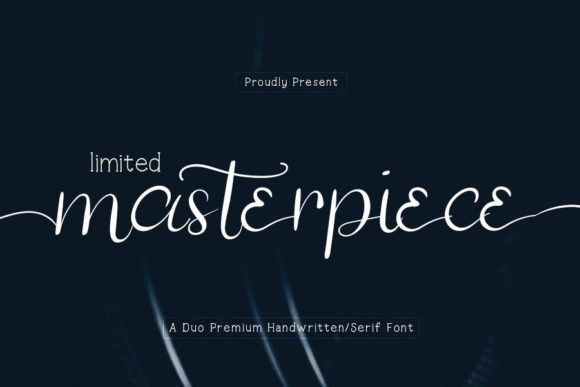
Embark on a Typographic Journey with Limited Masterpiece Font: An Artistic Fusion of Elegance and Finesse
Prepare to be entranced by Limited Masterpiece, a captivating and entrancing font duo that will elevate your designs to new heights of artistic expression. This remarkable creation by Creassion Studio seamlessly blends the grace of a serif font with the fluidity of a script, resulting in an aesthetic that radiates elegance and class. Limited Masterpiece is not just a font; it's an experience that will transform your creative visions into masterpieces.
Indulge in the beauty of Limited Masterpiece's serif font, where each letter is meticulously crafted with delicate strokes and refined curves, exuding a timeless charm that will leave a lasting impression on your audience. Perfectly suited for elegant invitations, sophisticated branding, and captivating logos, this font will elevate your designs with its understated yet undeniably captivating presence.
Immerse yourself in the enchanting world of Limited Masterpiece's script font, where each character dances across the page like a delicate ballet. Its graceful lines and elegant flourishes infuse your designs with a touch of whimsy and romance, making it an ideal choice for wedding invitations, heartfelt letters, and enchanting social media posts. Limited Masterpiece's script font will transform your words into works of art, adding a layer of emotional depth to your messages.
Whether you're a seasoned designer or just starting your creative journey, Limited Masterpiece is the perfect font duo to add to your collection. Its versatility and adaptability make it a must-have for any project, from personal crafting endeavors to professional design ventures. Let Limited Masterpiece be your creative companion, inspiring you to create designs that captivate, enchant, and leave an indelible mark on those who encounter them.